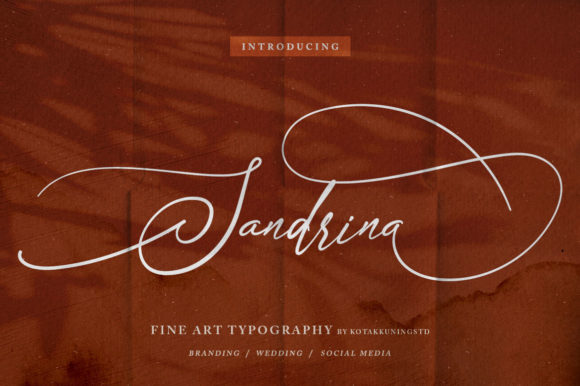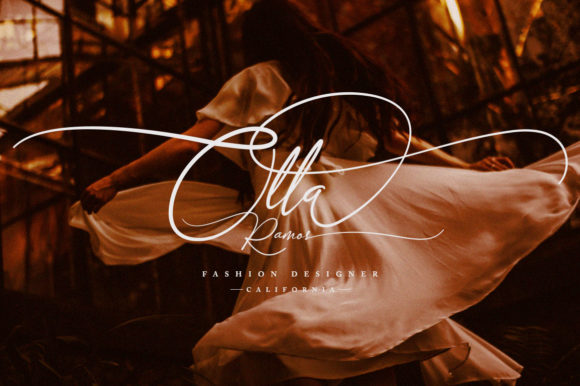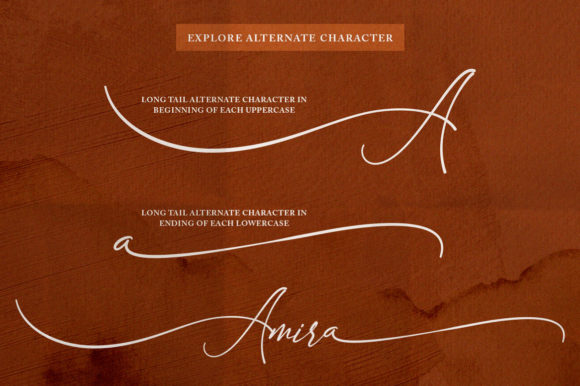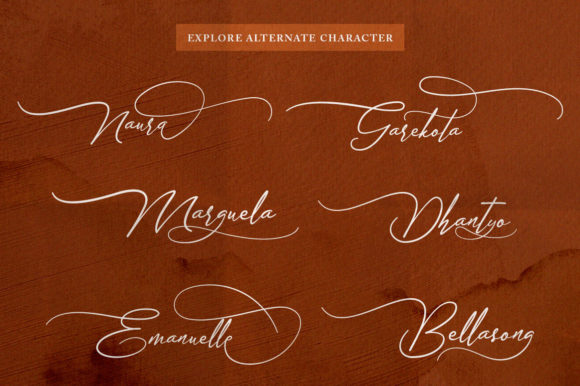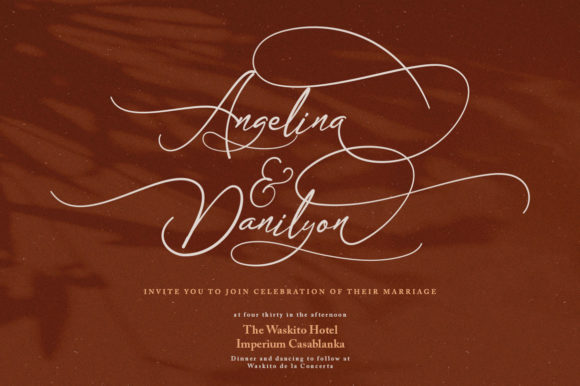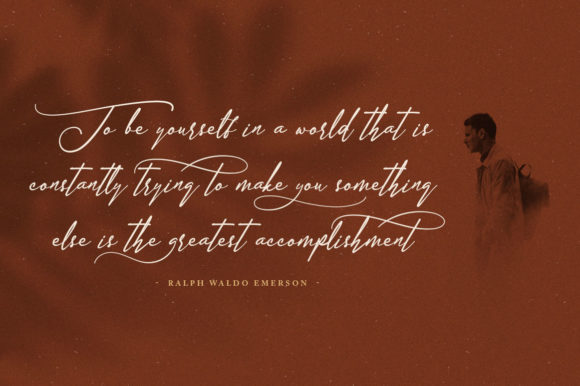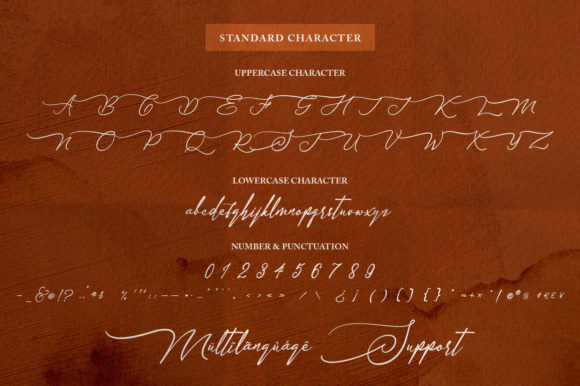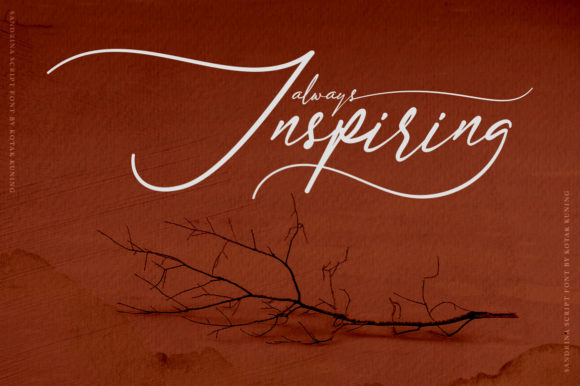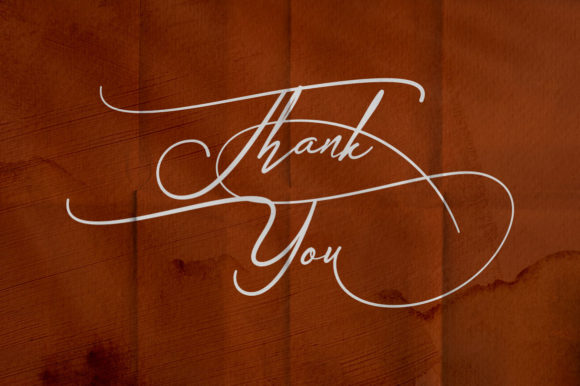
Sandrina Font
About Sandrina Font
Sandrina is a gorgeous calligraphy script font. It features an incredibly classic style, while still keeping a friendly feel. Sandrina is the perfect font for making original and outstanding designs.